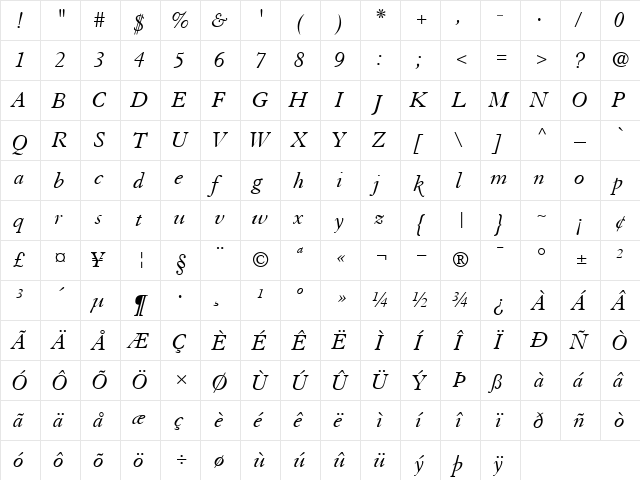
Granjon RomanItalic
Design Context for Granjon Typeface
Granjon offers clean, dependable letterforms without strong stylistic allegiance, making it a practical choice for designers who need flexibility. Its italic angle brings a sense of urgency and motion to the letterforms.
Pro Tip: Use Granjon for emphasis, pull quotes, and subheadings where its slanted energy can add rhythm to the layout.